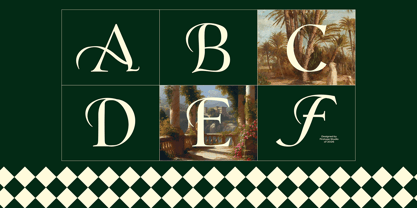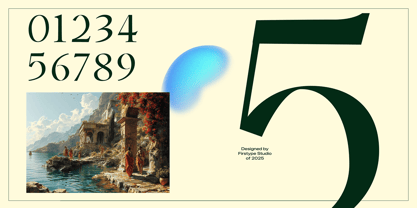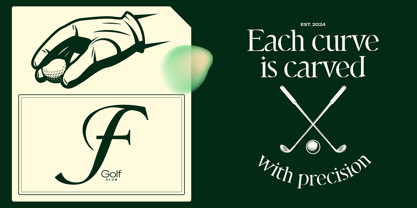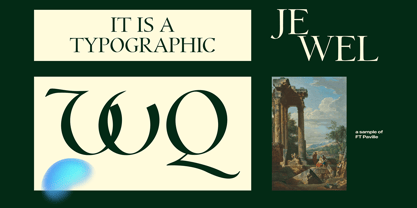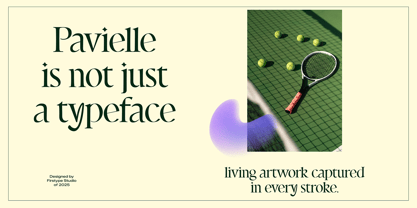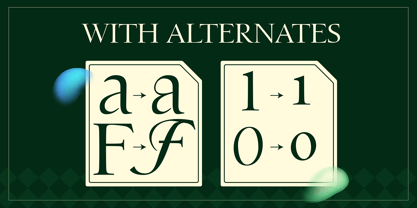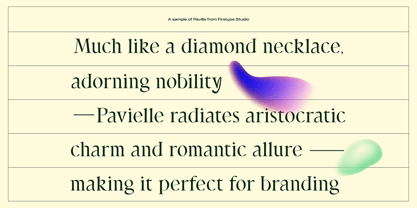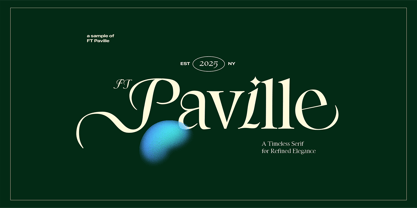
FT Pavielle
by Firstype Studio
The FT Pavielle Font Family was designed by Adrian Syauqi and published by Firstype Studio. FT Pavielle contains 3 styles and family package options. More about this family
FT Paville is a modern serif font designed for clean, elegant, and professional typography. Its balanced proportions and refined serif details make it an excellent choice for branding, editorial layouts, and logo design. This versatile typeface performs exceptionally well in both digital and print media, catering to designers engaged in premium and contemporary projects. Ideal for a variety of applications, FT Paville shines in: – Branding & identity – Editorial & magazine layouts – Logos & headlines – Packaging & promotional design.